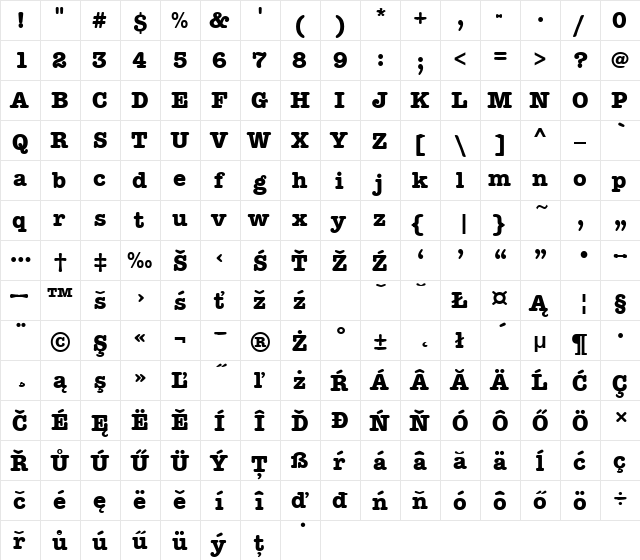
AmeriTypItcDEEBol Regular
Design Context for AmeriTypItcDEEBol Typeface
AmeriTypItcDEEBol is a composed and adaptable typeface that performs quietly and consistently across a wide range of design contexts.
Pro Tip: Use AmeriTypItcDEEBol in both headline and body roles to test its range before committing to a single application.